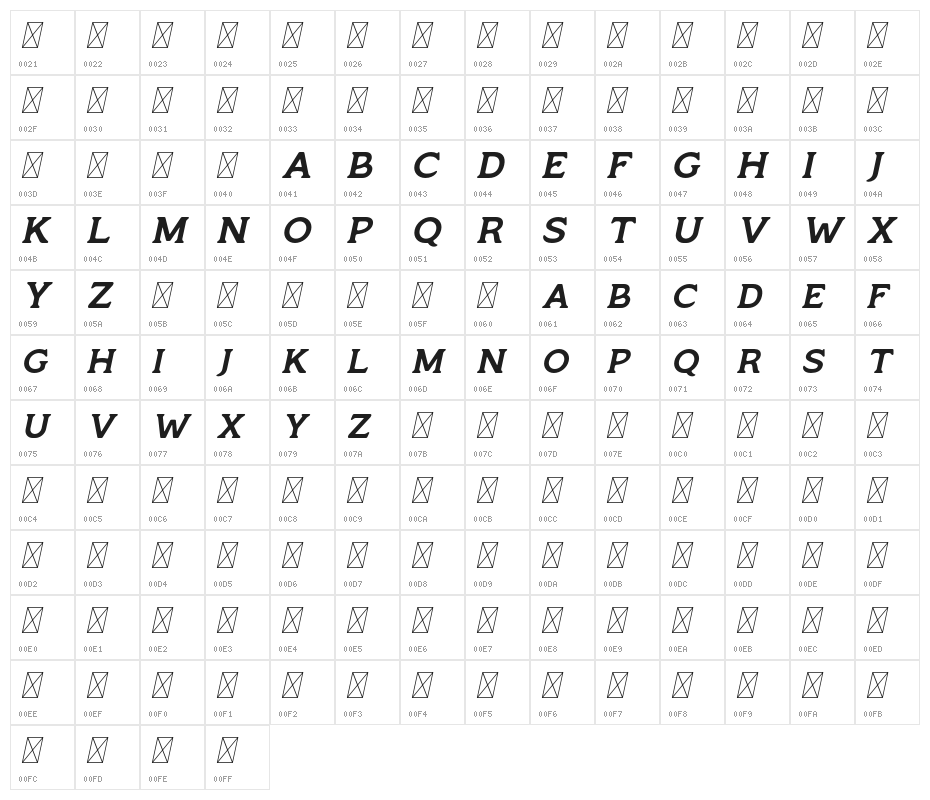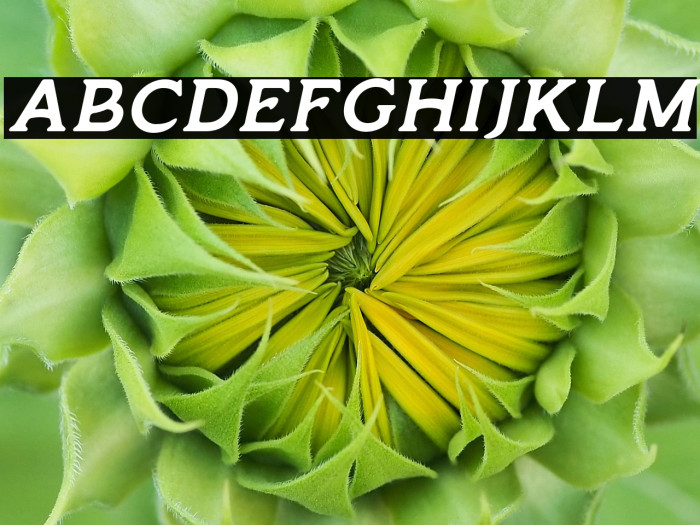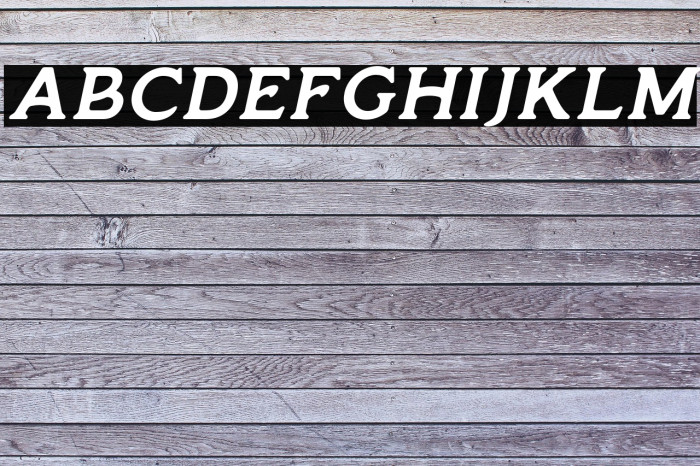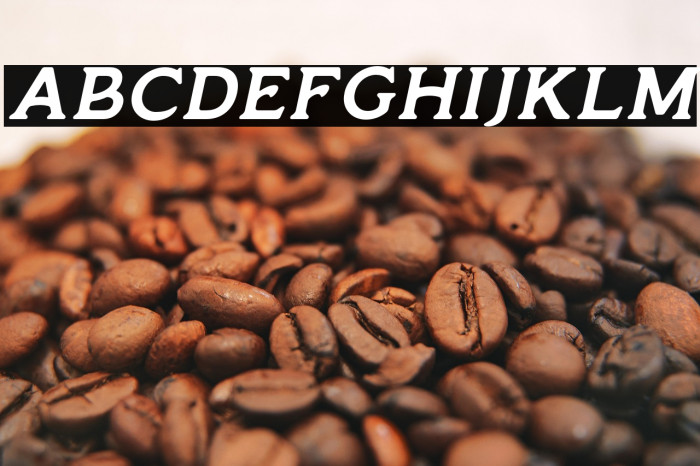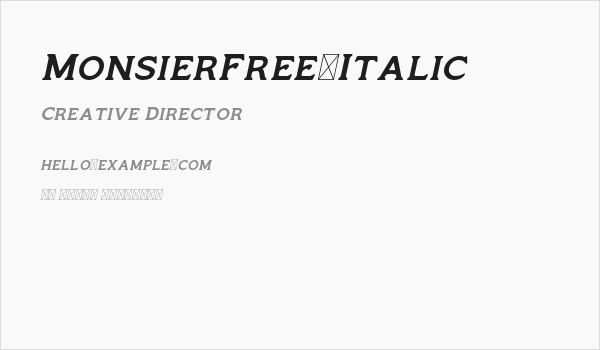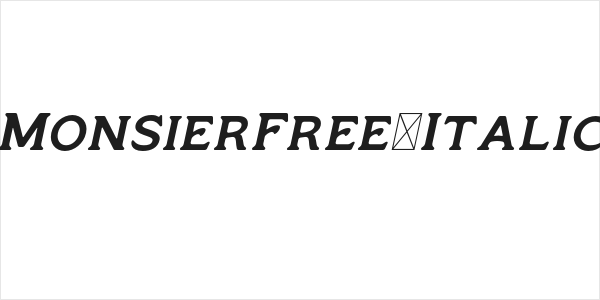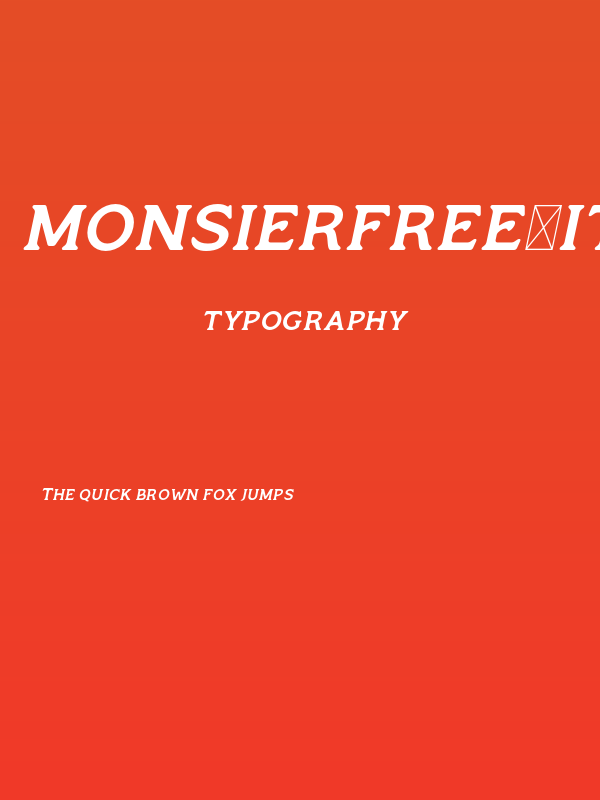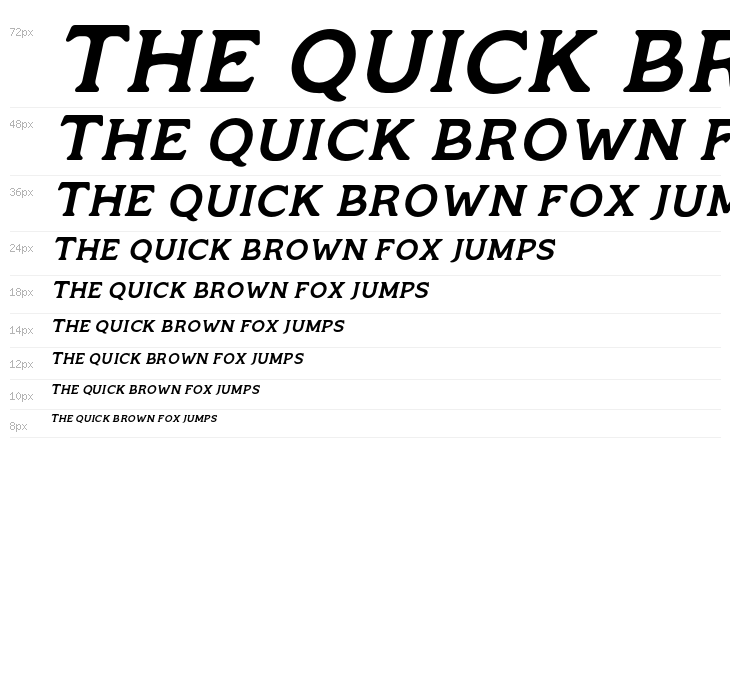
MonsierFree-Italic Font
MonsierFree-Italic Description
This font features a classic italic style with a smooth and elegant flow. The characters are slightly slanted, giving a sense of motion and sophistication. The strokes are consistent, with moderate contrast between thick and thin lines, adding to its readability and aesthetic appeal. The uppercase letters are bold and prominent, while the lowercase letters maintain a graceful and balanced appearance. The font's overall design is timeless, making it suitable for a variety of applications where elegance and clarity are desired.
| Use Case | Headlines, Invitations, Branding |
| Proposed Projects | Ideal for wedding invitations, formal event programs, elegant branding, and editorial design. |